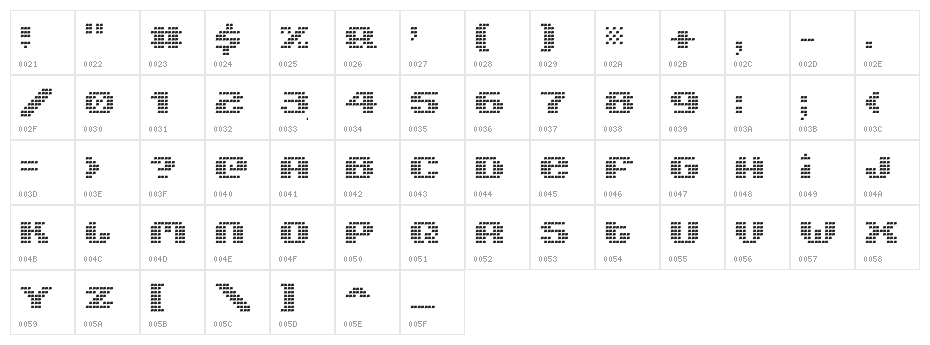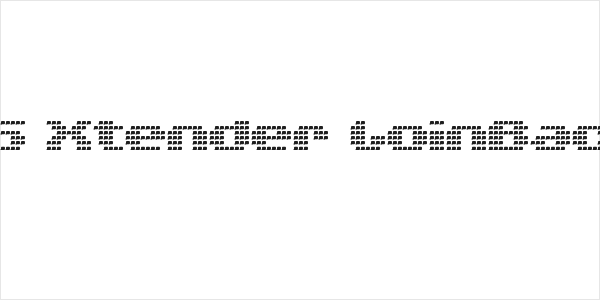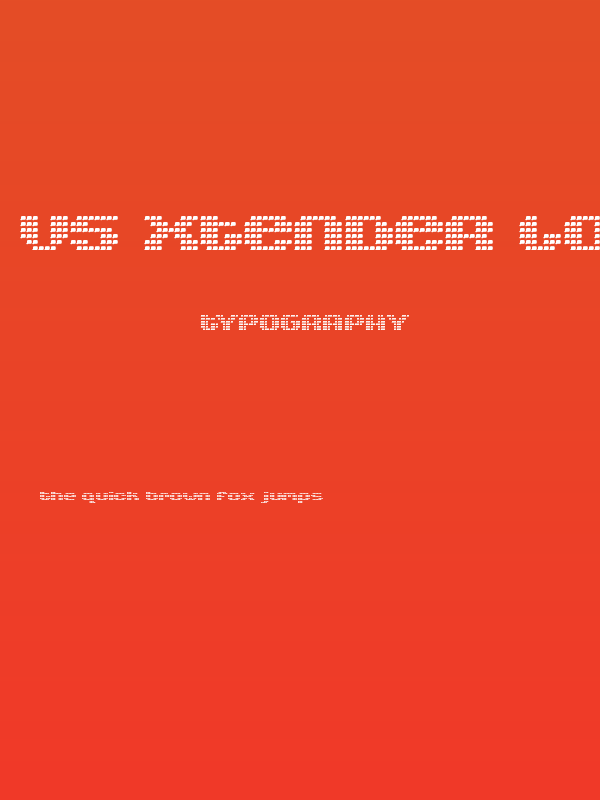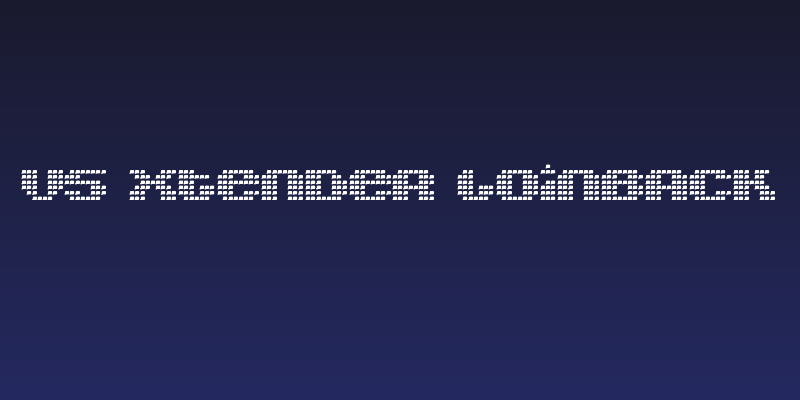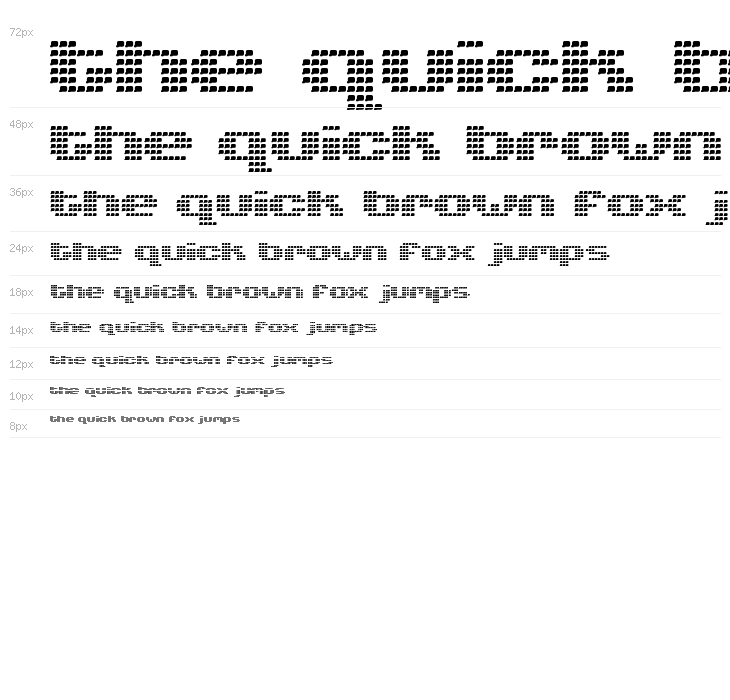
V5 Xtender LoinBack Font
V5 Xtender LoinBack Description
This font features a distinctive dot matrix style, reminiscent of digital displays or retro computer screens. Each character is constructed from a grid of small, evenly spaced dots, giving it a pixelated appearance. The uniformity of the dots creates a cohesive and structured look, while the rounded edges of the characters add a touch of softness to the otherwise geometric design. This font is highly legible and maintains clarity even at smaller sizes, making it suitable for both digital and print applications. Its unique style evokes a sense of nostalgia and modernity simultaneously, making it ideal for projects that aim to blend the old with the new.
| Overall Style | Retro, Modern |
| Use Case | Headlines, Logos, Digital displays |
| Proposed Projects | Ideal for digital displays, retro-themed designs, video game interfaces, and tech-related branding. |